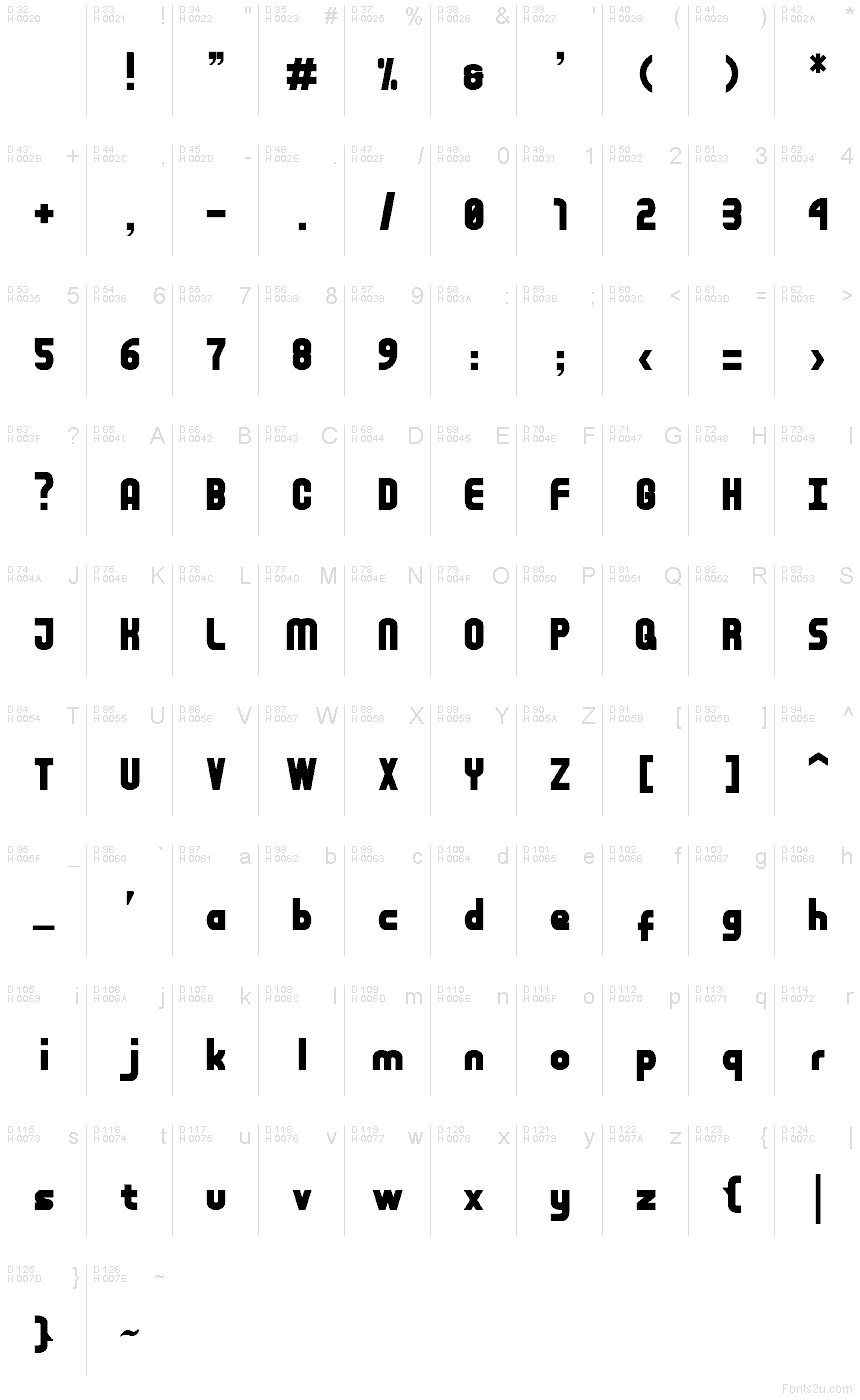
Buman Bold
Buman Bold font is a retro-inspired, geometric sans serif by Bharata Yoga Permana. It combines modern aesthetics, clean lines, and minimalistic design elements to create a strong presence with an authoritative tone. Its boldness ensures clarity and instant readability for any text used within both digital or print projects.
Incorporate this free bold type in headers, subheadings or body text for minimalist posters, websites, magazine/newspaper layouts + front pages, logo designs or packaging. Buman will also thrive when featured on brand identity materials such as business cards or letterheads.